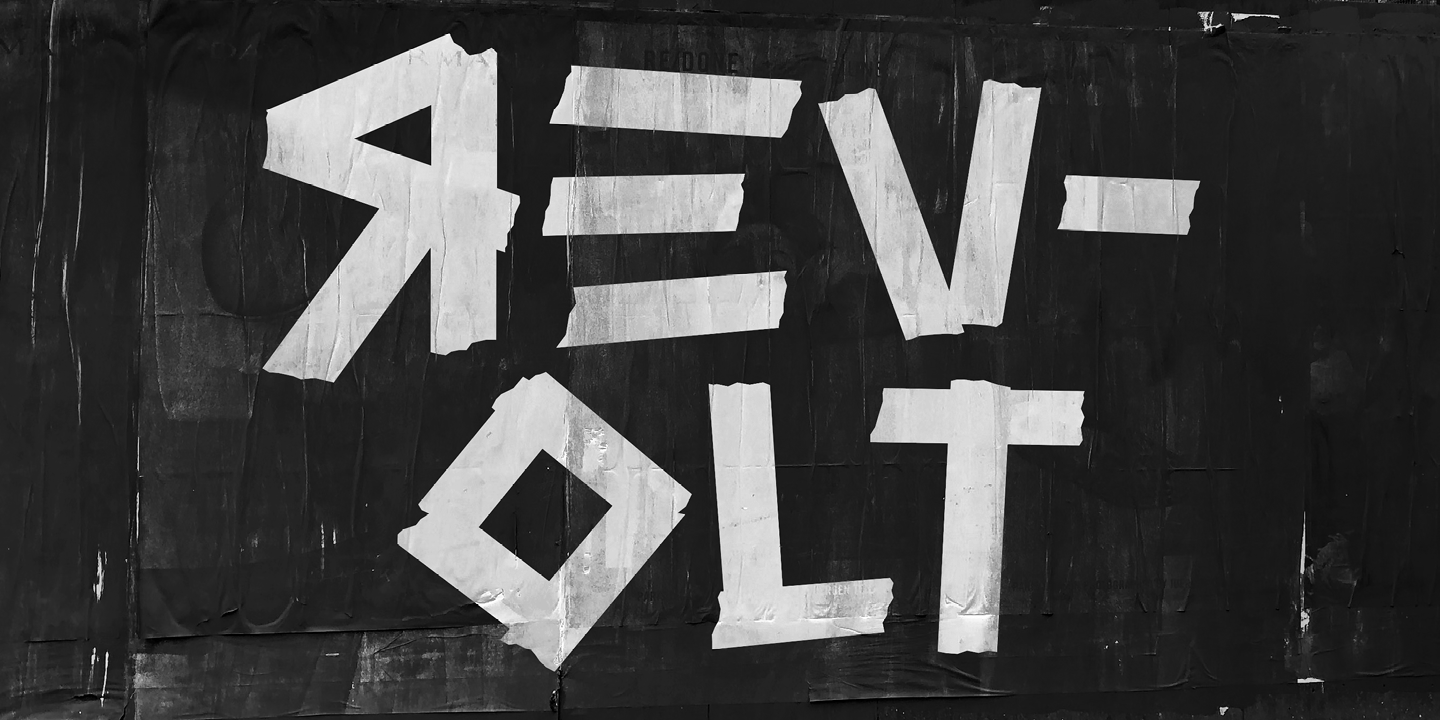
OC Revolt Font is perfect for rebellious music band logos, underground culture posters, alternative fashion branding, revolutionary movement graphics, protest art designs, counterculture magazine layouts, edgy streetwear labels, punk rock album covers, youth rebellion campaigns, and disruptive brand identities that require bold defiance and revolutionary spirit.
This font is exciting because it embodies the raw energy and fearless spirit of rebellion with aggressive letterforms that break conventional rules and challenge traditional typography, creating an instantly recognizable aesthetic of defiance and revolutionary change. OC Revolt Font features jagged edges and unconventional proportions that reflect the disruptive power and rebellious attitude essential for brands that refuse to conform and dare to challenge the status quo.
OC Revolt Font family includes Regular, Bold, Rebel, Underground, Aggressive, Defiant, Revolutionary, and Anarchist versions, plus rebellion symbols, protest ornaments, revolutionary icons, and disruptive design elements that enhance the rebellious aesthetic and provide comprehensive solutions for alternative and counterculture applications.
For rebellious and alternative design projects, OC Revolt Font Free Download delivers unmatched revolutionary energy and defiant appeal. The font's aggressive letterforms and rebellious character make it perfect for alternative brands, underground movements, and rebellious organizations seeking to communicate defiance, change, and revolutionary spirit. Its disruptive design appeals to audiences who challenge authority and embrace alternative culture. The character set includes rebellion alternates and revolutionary variations that maximize counterculture impact and alternative expression. Professional designers appreciate its ability to convey both authentic rebellion and artistic quality while maintaining excellent readability across alternative marketing, rebellious branding, and revolutionary communications, making it essential for brands that want to project the fearless defiance and revolutionary energy that defines authentic rebellion and inspires transformative change in established systems and conventional thinking.